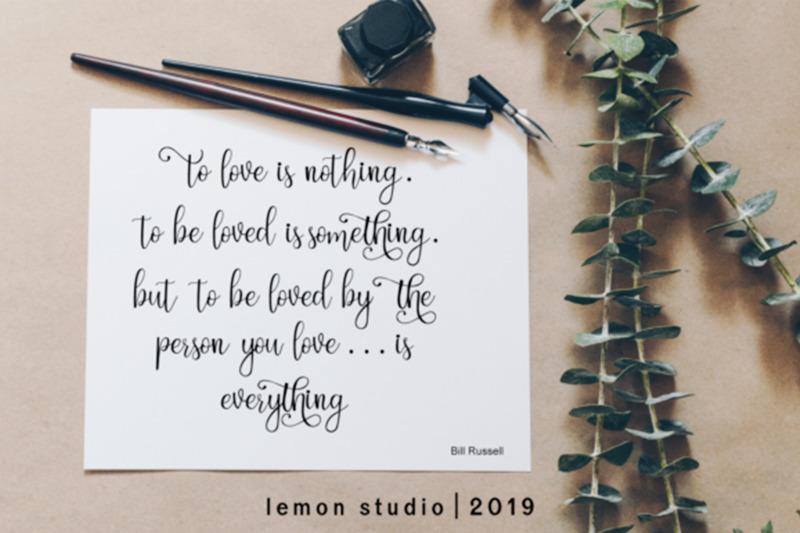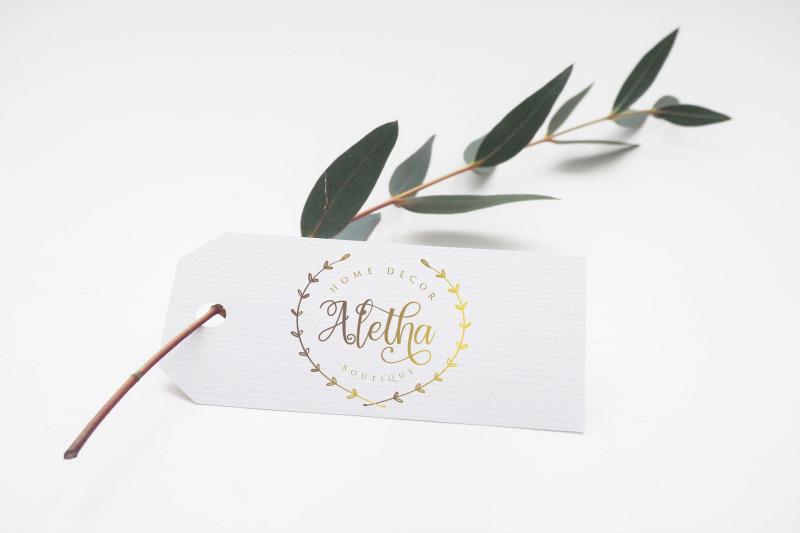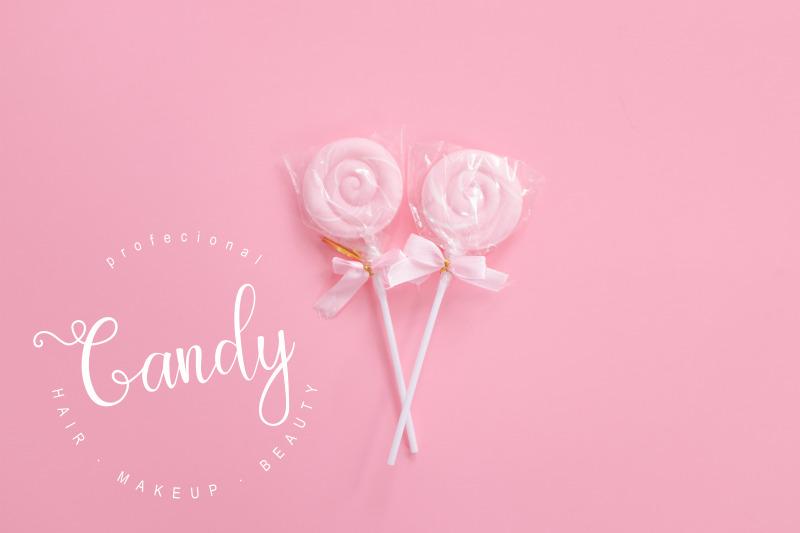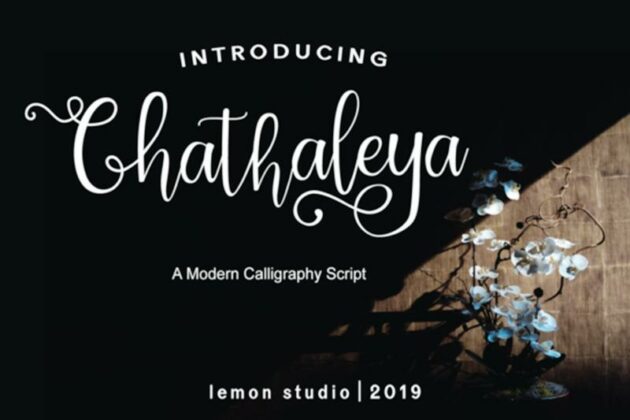
HomeScript Fontschathaleya Script Fonts chathaleya FacebookXPinterestWhatsApp 1 of 4 ... ... ... ... About chathaleya The chathaleya is a modern calligraphy script. Its elegant style is perfect for logos, branding, invitations, photography, wedding stationary, labels, and every other design which needs an unique and luxurious touch DOWNLOAD NOW People also explored Betnefie Font Zakesya Font Beauty Florist Font Quotes Font Fireclay Font Nevalm Font Starry Night Font Frangstton Font Love Busan Font 330 0 Tagschathaleya Previous articleDesigner Font BundleNext articleMorepling LEAVE A REPLY Cancel reply Comment: Please enter your comment! Name:* Please enter your name here Email:* You have entered an incorrect email address! Please enter your email address here Website: Save my name, email, and website in this browser for the next time I comment. Personal Use Free BD Alm Personal Use Free Read more about this font Awesome Snowflakes Font Personal Use Free Read more about this font Strasua Personal Use Free Read more about this font Cloudy Night Personal Use Free Read more about this font BLOG How to Install and Use Fonts on Windows, macOS, and Web Projects How to Install and Use Fonts on Windows, macOS, and Web Projects Fonts are a crucial part of design and branding. Whether you’re designing a... Top 10 Handwritten Fonts That Elevate Your Designs The 10 Best Handwriting Fonts to Add Personality to Your Designs Elegant Wedding Invitation Fonts – Handwritten & Script Fonts